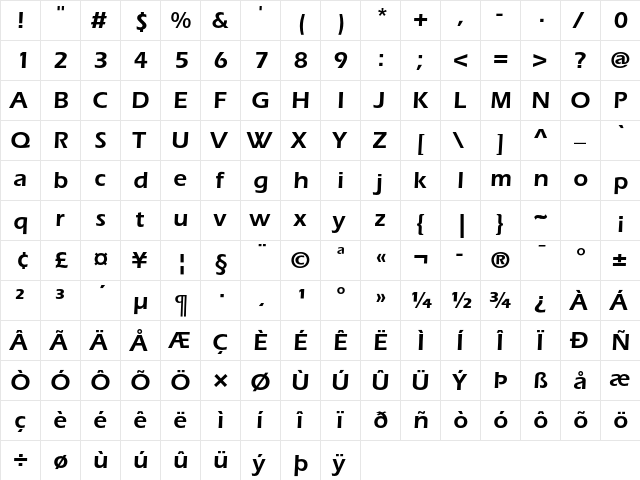
ITC Eras Std Demi
| Designer | Albert Boton, Albert Hollenstein |
Design Context for ITC Eras Std Typeface
ITC Eras Std is a composed and adaptable typeface that performs quietly and consistently across a wide range of design contexts.